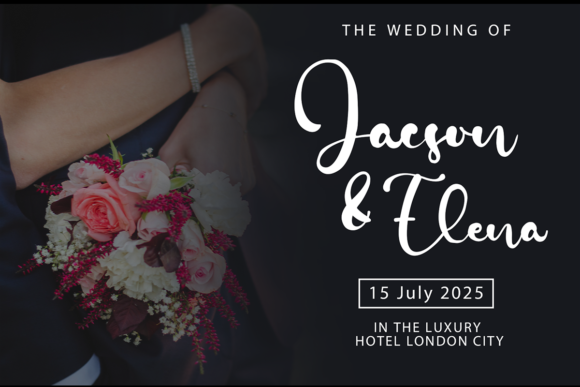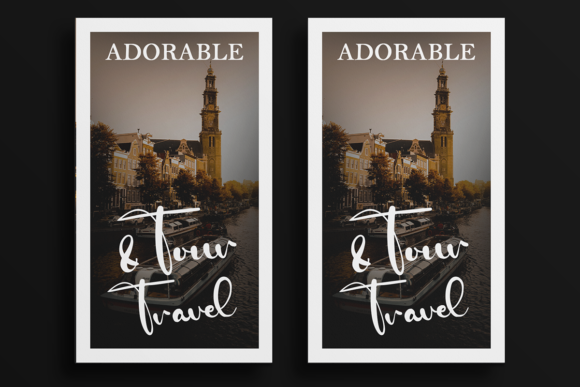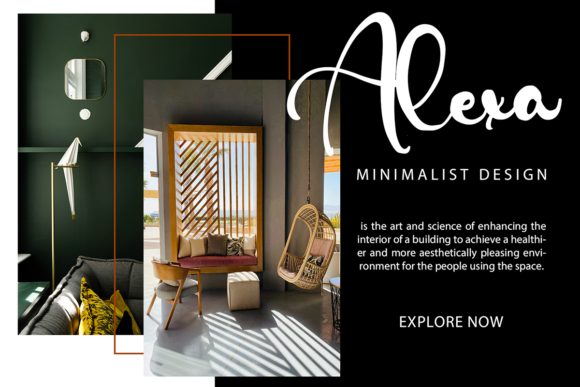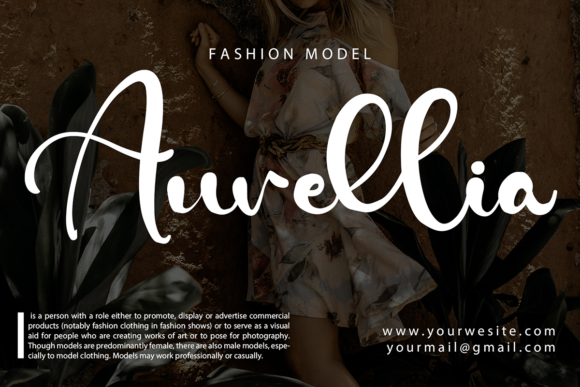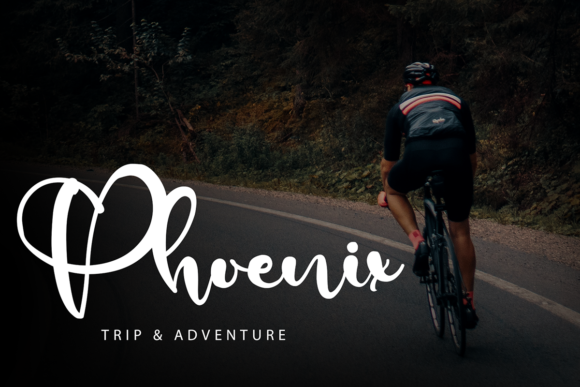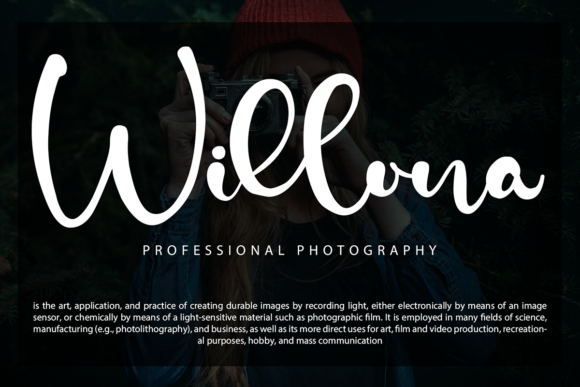
Campbell Font: Elevate Your Designs with Modern Elegance
In the world of typography, a font can make or break a design. For creatives, designers, and crafters, finding the perfect typeface is crucial for bringing their vision to life. If you’re on the hunt for a modern and beautiful script font that exudes elegance and sophistication, look no further than Campbell Font. This stunning collection of letters and numbers is designed to elevate your creative projects and take your designs to the next level.
What is Campbell Font?
Campbell Font is a contemporary script font that boasts a unique blend of modern style and classic charm. With its flowing lines, beautiful swashes, and intricate details, this font is perfect for designers and crafters who want to add a touch of elegance to their work. Whether you’re creating a logo, branding design, or digital lettering art, Campbell Font is the perfect choice.
Key Features of Campbell Font
- Modern and Beautiful Design: Campbell Font features a sleek and sophisticated design that’s perfect for modern designs.
- Script Font: This font is a script font, making it ideal for designs that require a touch of elegance and personality.
- Collection of Letters and Numbers: Campbell Font includes a comprehensive collection of letters and numbers, making it versatile for various design needs.
- Suitable for Various Design Projects: This font is perfect for logotype, branding design, logo design, digital lettering arts, t-shirt/apparel, poster, magazine, signs, advertising design, and more.
Use Cases for Campbell Font
Campbell Font is a versatile typeface that can be used in a wide range of design projects. Here are some of the most popular use cases:
- Logotype and Branding Design: Create a stunning logo for your brand with Campbell Font. Its modern and elegant design makes it perfect for businesses that want to establish a strong visual identity.
- Logo Design: Use Campbell Font to create a unique and memorable logo that sets your brand apart from the competition.
- Digital Lettering Arts: Campbell Font is perfect for digital lettering arts, such as creating stunning quotes, posters, and social media graphics.
- T-Shirt/Apparel Design: Add a touch of elegance to your t-shirt or apparel design with Campbell Font. Its beautiful script design makes it perfect for fashion brands and designers.
- Poster and Magazine Design: Use Campbell Font to create stunning posters and magazine designs that grab attention and leave a lasting impression.
- Signs and Advertising Design: Campbell Font is also great for creating signs and advertising designs that require a modern and elegant touch.
Benefits of Using Campbell Font
So, why choose Campbell Font for your design projects? Here are some of the benefits of using this beautiful script font:
- Unique and Memorable Designs: Campbell Font helps you create unique and memorable designs that stand out from the crowd.
- Elegant and Sophisticated Look: This font adds an elegant and sophisticated touch to your designs, making them perfect for high-end brands and luxury products.
- Versatile and Flexible: Campbell Font is versatile and flexible, making it suitable for various design projects and applications.
- Easy to Read and Understand: Despite its elegant design, Campbell Font is easy to read and understand, making it perfect for designs that require clear communication.
In conclusion, Campbell Font is a modern and beautiful script font that’s perfect for designers and crafters who want to elevate their designs with elegance and sophistication. With its unique features, versatility, and flexibility, this font is suitable for various design projects, from logotype and branding design to digital lettering arts and advertising design. If you’re looking for a font that can help you create stunning designs that leave a lasting impression, Campbell Font is the perfect choice.